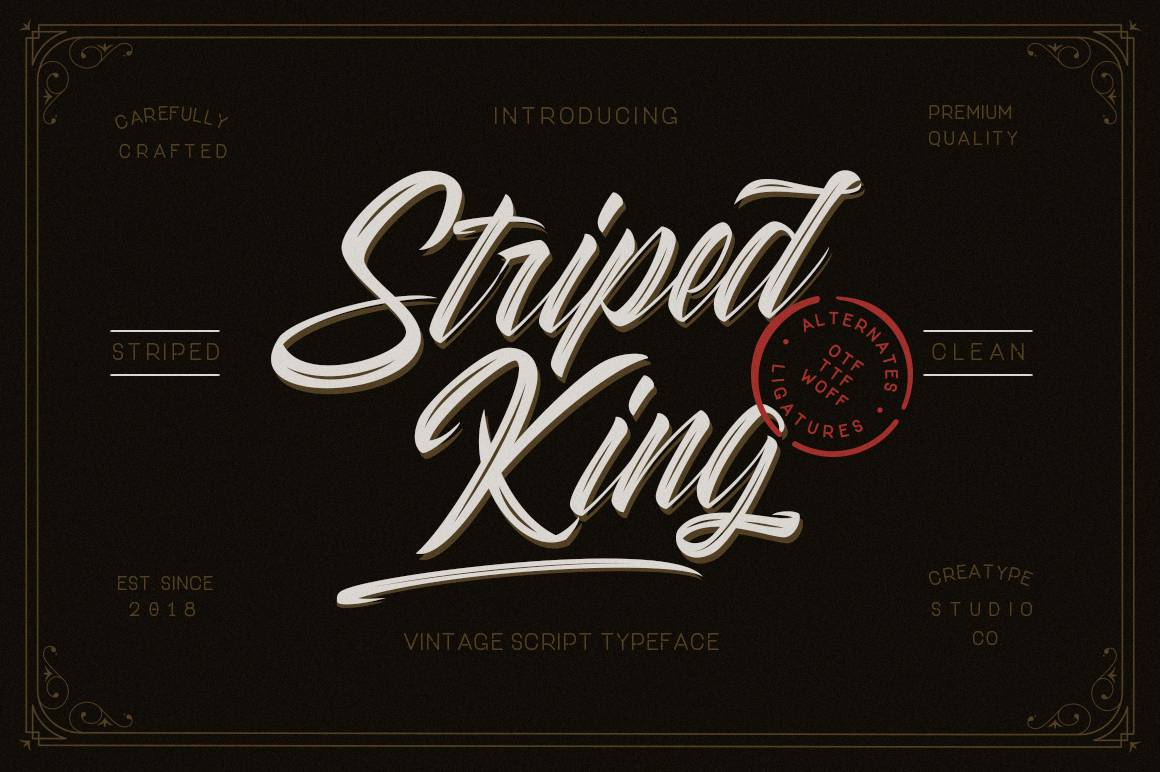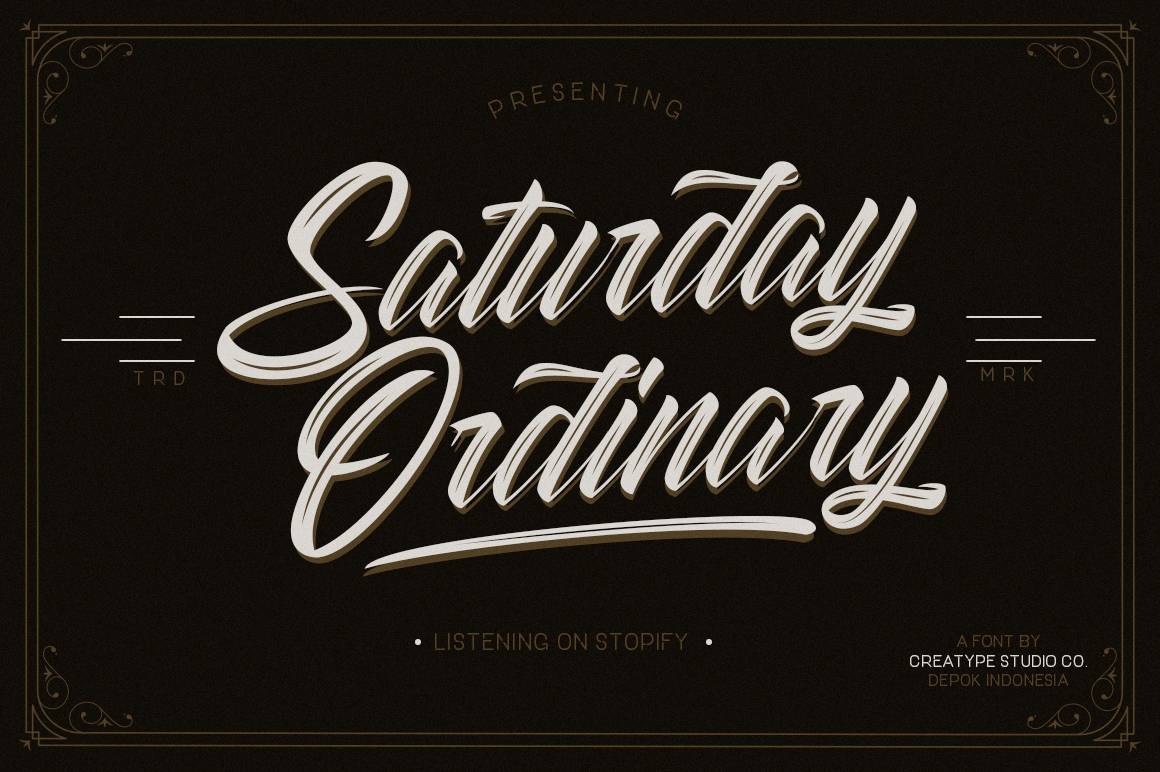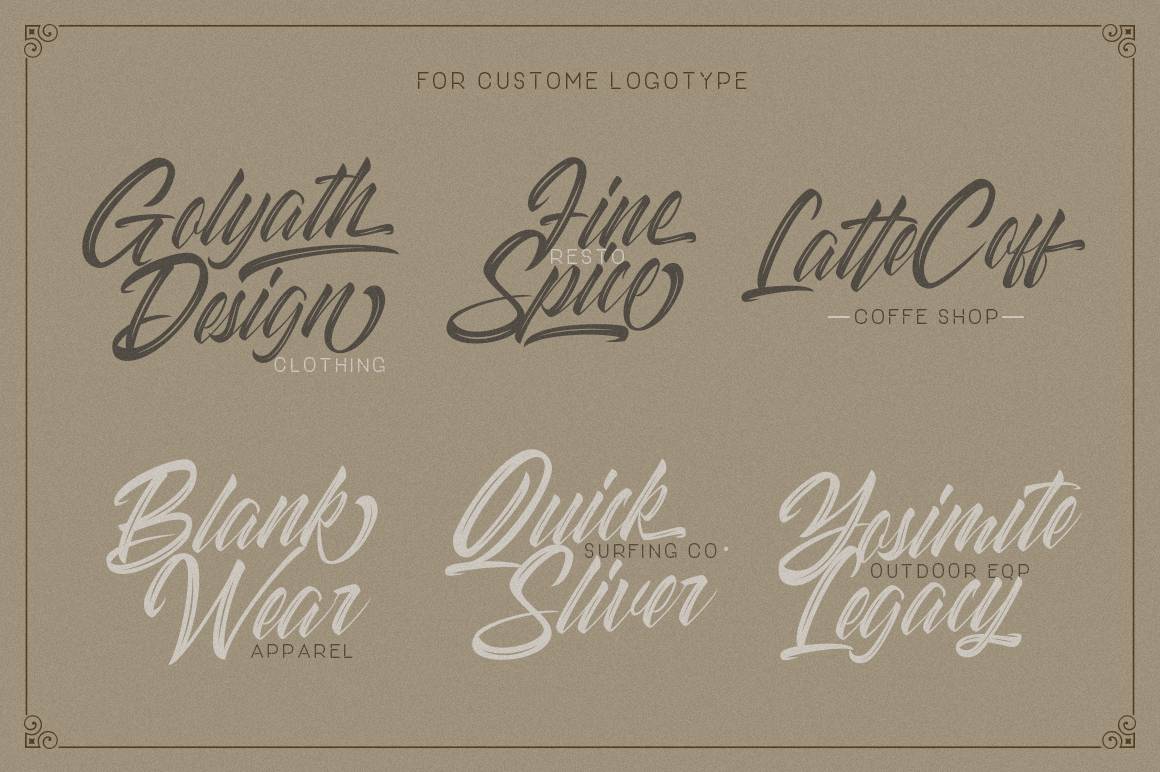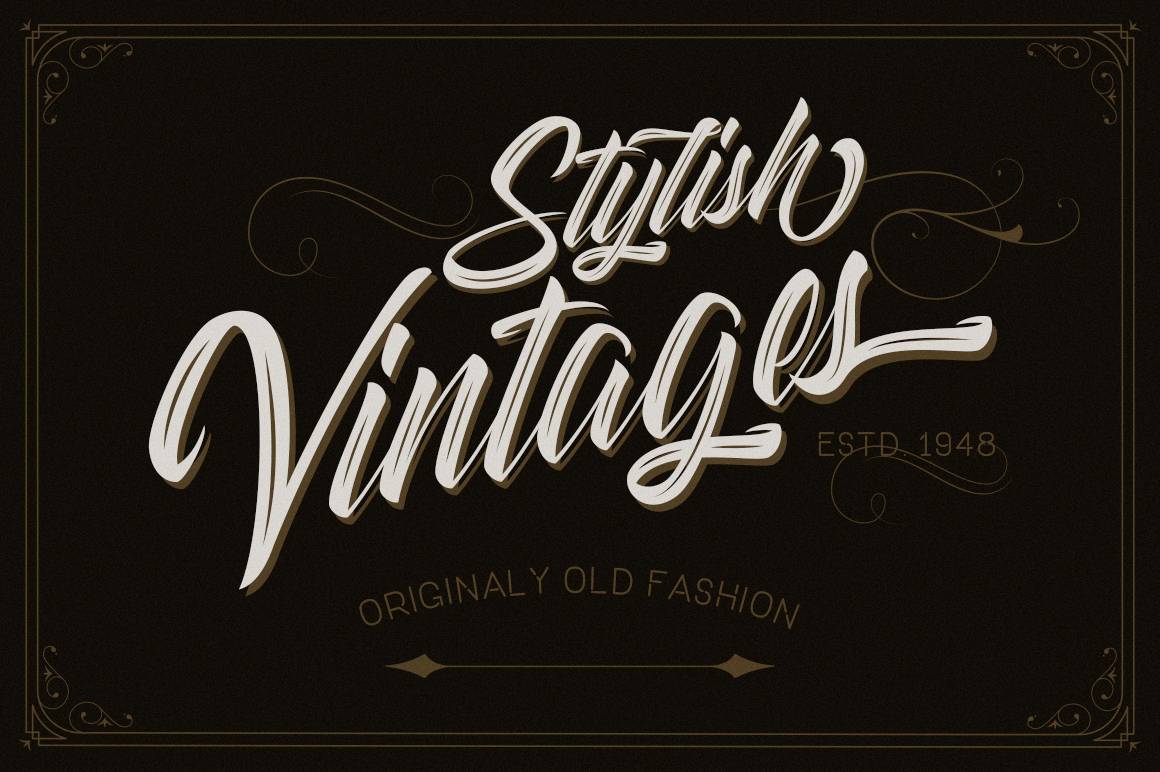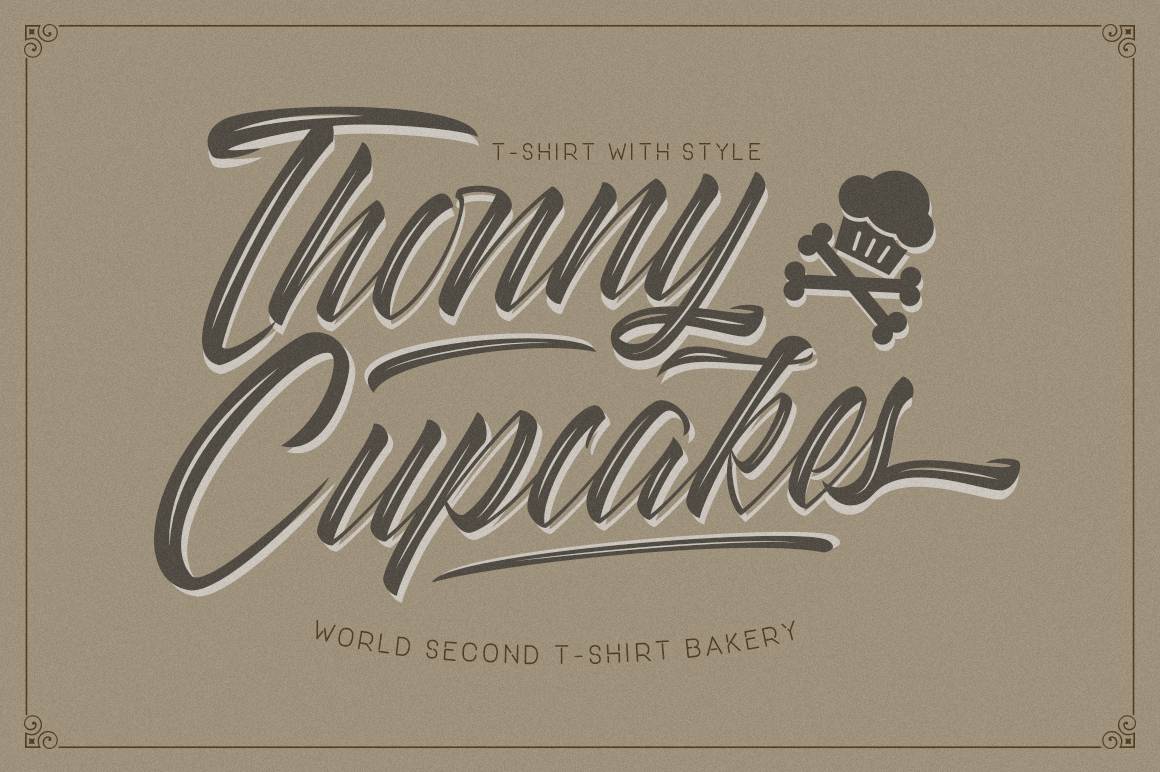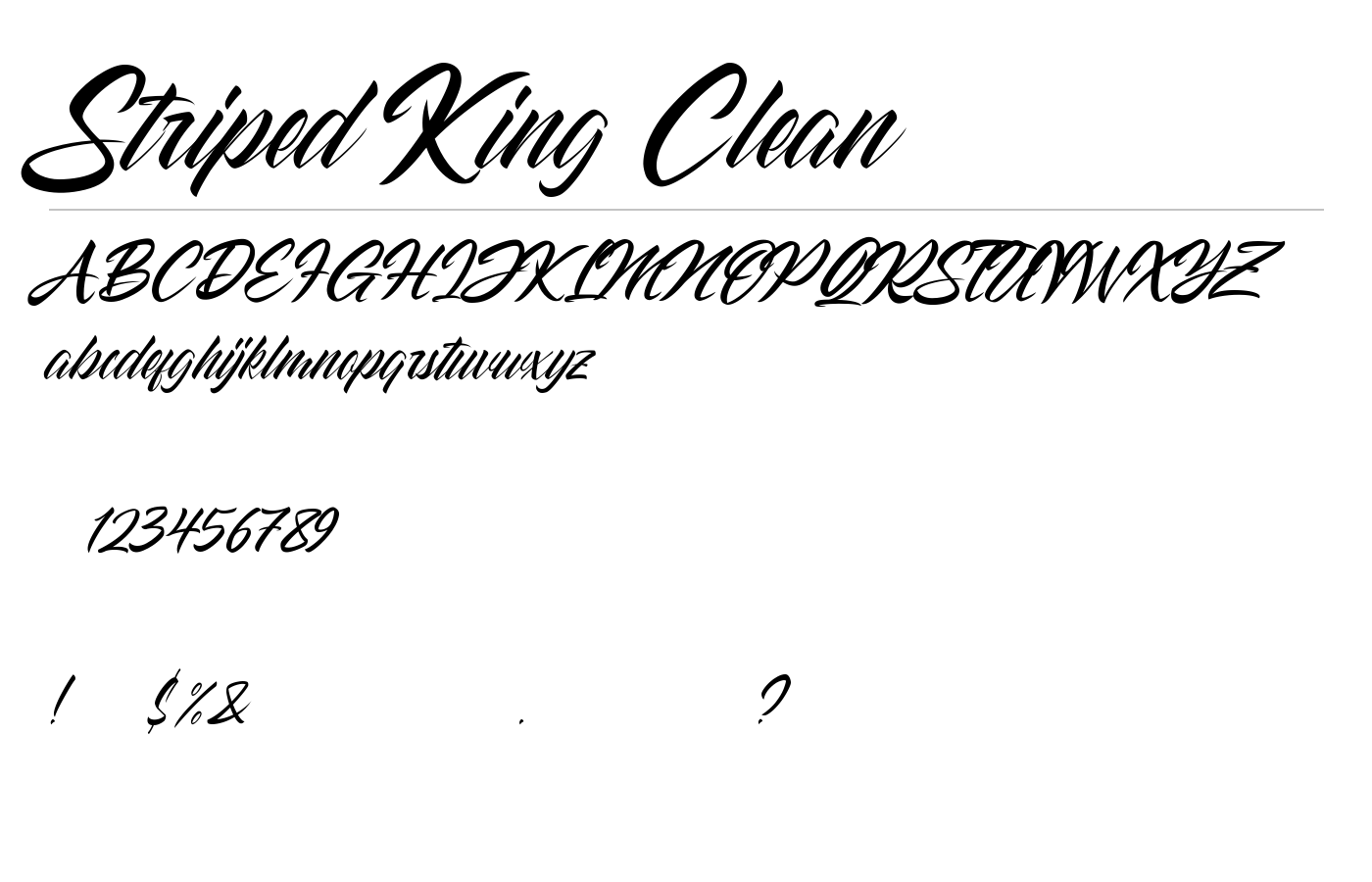
Striped King is an elegant script font with smooth, flowing strokes and a refined, handwritten feel. Its clean, slanted letters with moderate contrast and graceful curves add a stylish, sophisticated touch, making it perfect for luxury branding, invitations, and artistic headlines that seek a blend of modern flair and classic charm.
Striped King
About Striped King
| Font family | Striped King |